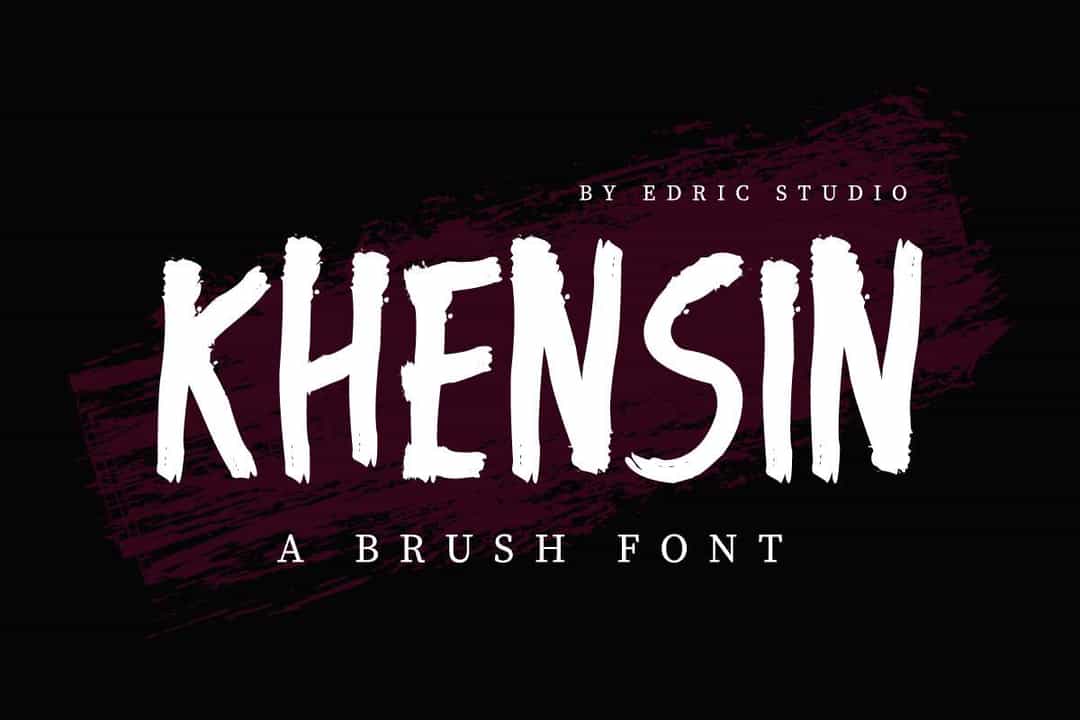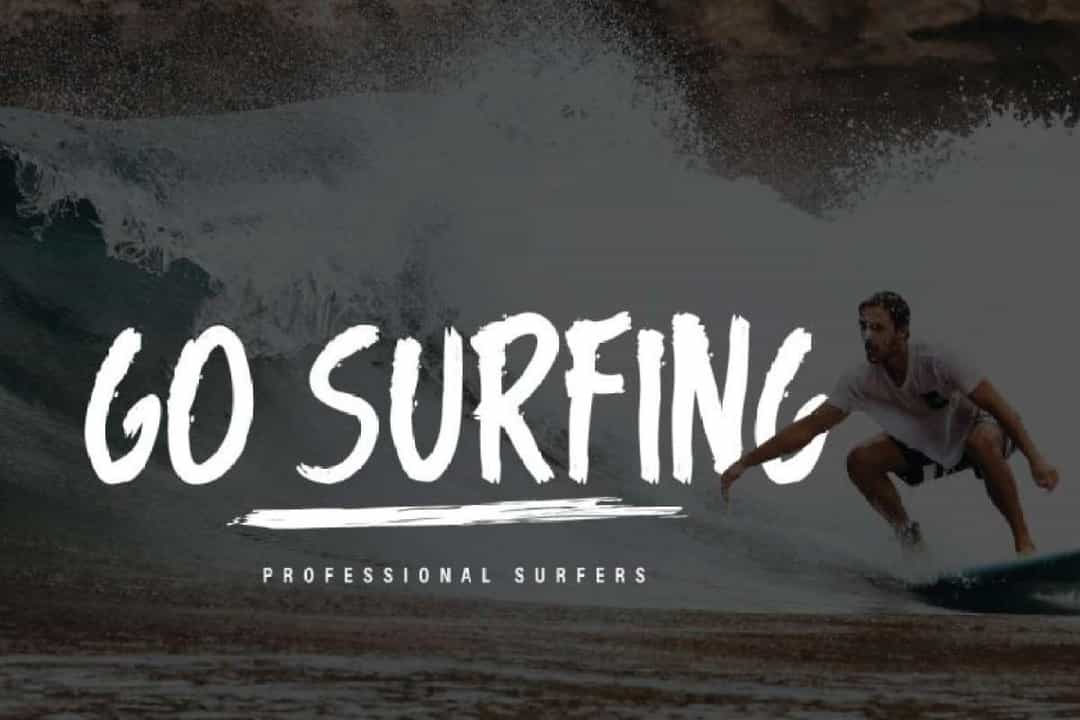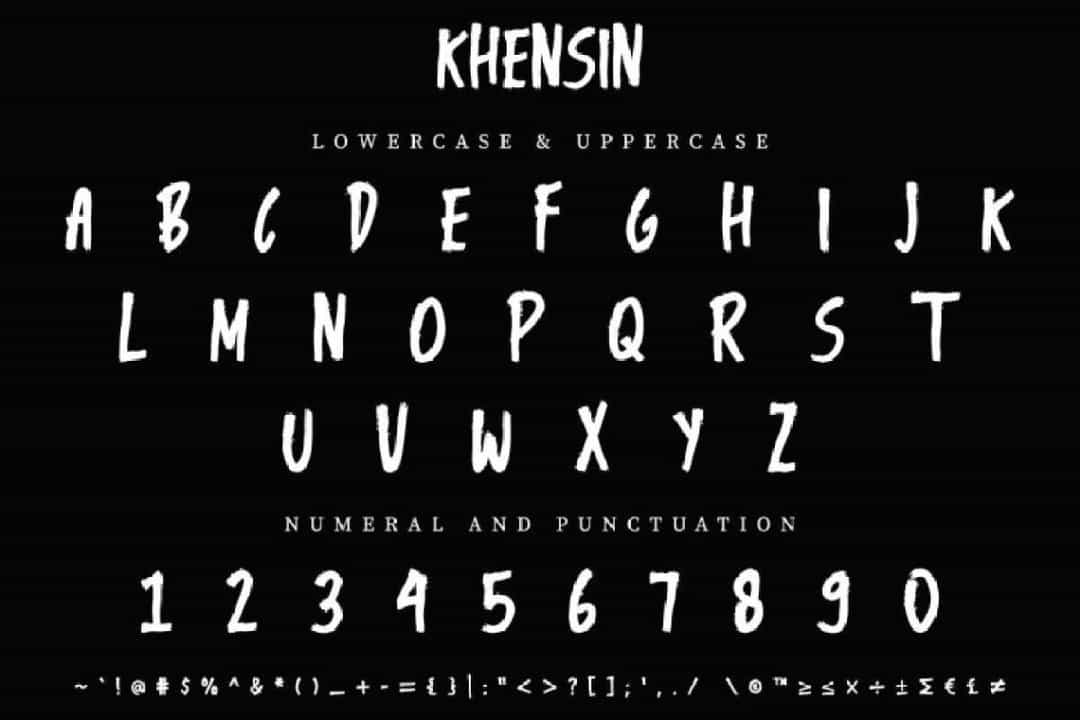
Khensin is an unique handwritten script featuring a distinct brush style. The font features a stunning characters set that is perfectly controlled with kerning and spacing that is well-placed. The the font is based on horror, movies games, vintage and classic brush styles.